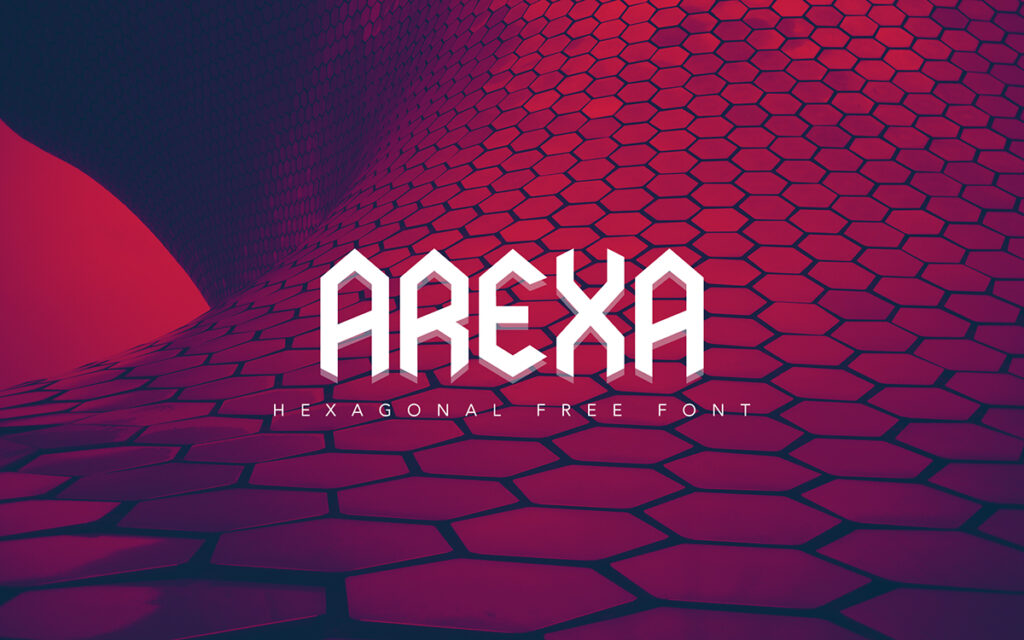
AREXA FONT is a hexagonal font with 158 glyphs. It is inspired from honey comb. Honey comb is the strong structure with high capacity to storage area. Its symmetric ability makes the typeface clean and crisp.